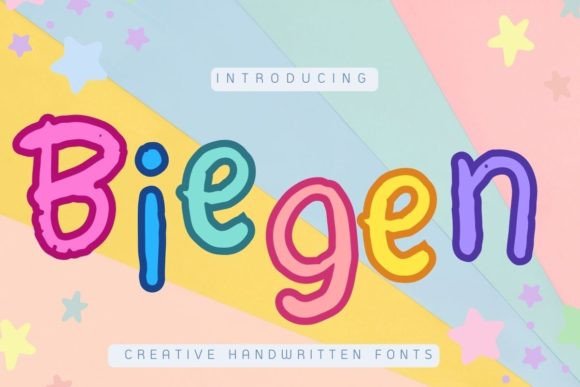
Introducing Biegen Font, the epitome of handwritten display fonts, a creation of TONGMON DRAW. This font family, characterized by its script style, is the perfect digital ink to paint your words with elegance and charm.
Unleash your creativity with Biegen Font, where possibilities know no bounds. Design captivating logos that exude sophistication or craft stunning wedding invitations that radiate romance. Create social media posts that pop with personality or elevate your branding with a touch of individuality. No matter how you wield this font, its allure will captivate your audience, leaving a lasting impression.
Biegen Font is more than just a collection of letters; it's an expression of your unique style. Its meticulous design ensures that each character dances across the screen with a life of its own, evoking emotions and telling stories. Whether you're a seasoned designer seeking a touch of magic or a novice just starting your creative journey, Biegen Font is your perfect companion.
With Biegen Font, you hold the key to unlock a world of design possibilities. Its versatility knows no bounds, adapting seamlessly to a myriad of projects. From enchanting book covers that transport readers to distant lands to eye-catching posters that command attention, Biegen Font is your secret weapon to make your designs shine.
Embark on a creative adventure with Biegen Font, and let your imagination run wild. Immerse yourself in a world where words come alive, and your designs take on a life of their own. Discover the joy of crafting visual masterpieces that resonate with your audience, leaving them spellbound by your creative genius.